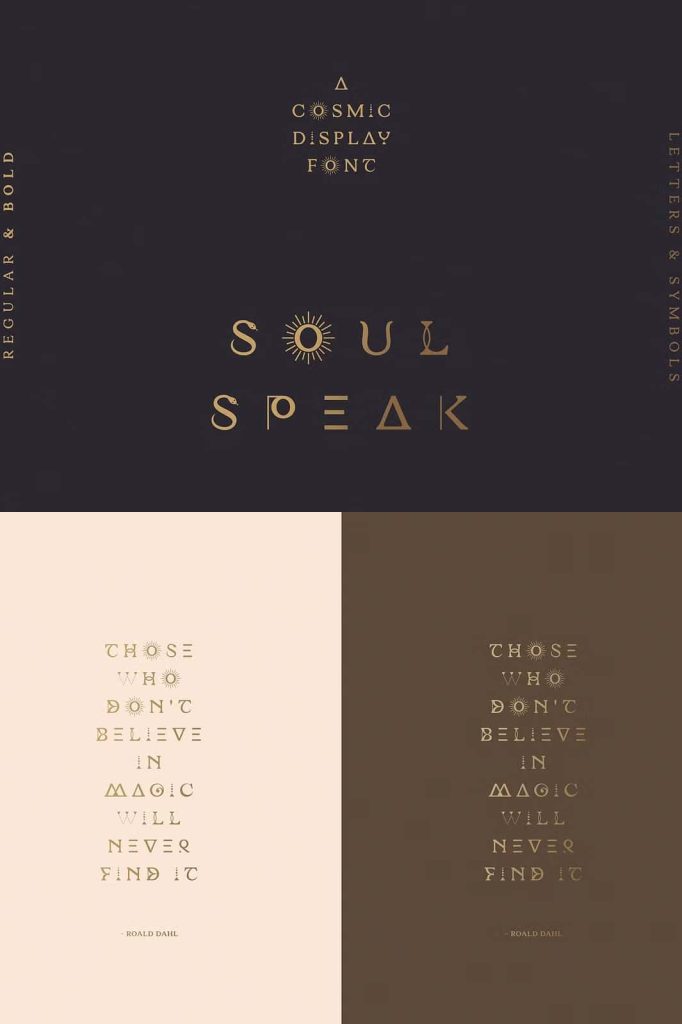
Soul Speak – cosmic symbols serifleastedMay 1, 2025Fonts Soul Speak is an uppercase only display font with an alternative set of letters designed to look like symbols Download